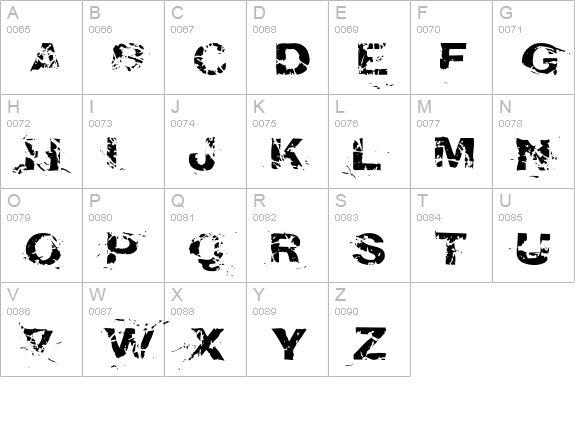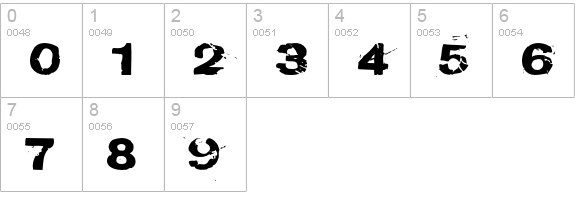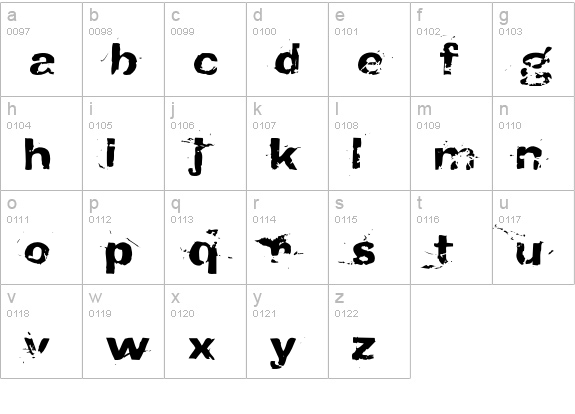
CrunchyFaxPhont Font Details
Introducing CrunchyFaxPhont font, a delightful and quirky typeface that is sure to make your designs stand out! This unique font features a perfect balance of playful curves and bold lines, giving it a fun and energetic vibe. Ideal for adding a touch of whimsy to any project, CrunchyFaxPhont is perfect for posters, logos, packaging, and more. The best part? CrunchyFaxPhont is available for free download at FontsMarket.com! This means you can easily access this charming font and start using it in your designs right away. Don't miss out on the opportunity to add CrunchyFaxPhont to your font collection and elevate your creative projects with its distinctive style. Download now and let your creativity soar with CrunchyFaxPhont font!